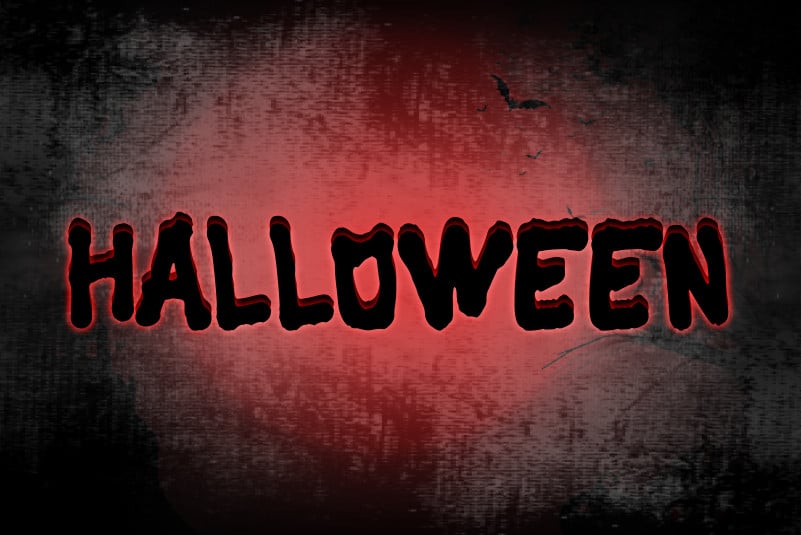
Cingire Hand drawn scary typeface is a playful and Hand-drawn scary typeface. Cingire is perfectly suited for traditional media and the web. great for the crafter and graphic artists. compatible with all tools. its playfulness makes it great for creative project, be inspirational wall poster, or for communicating your brand.
uppercase